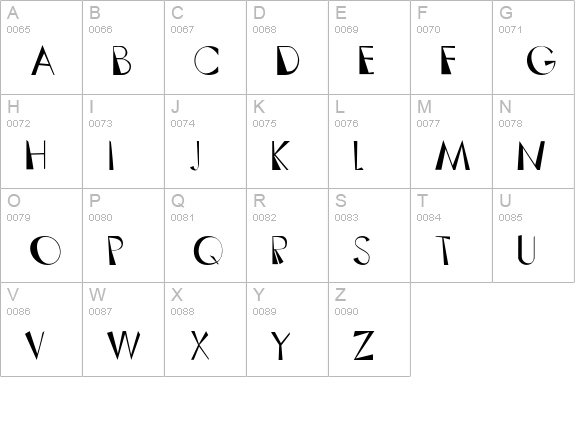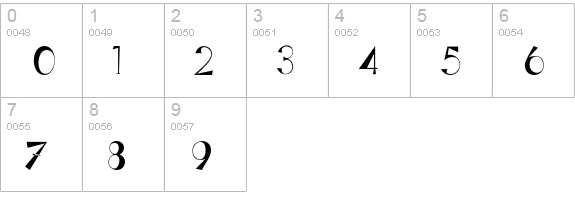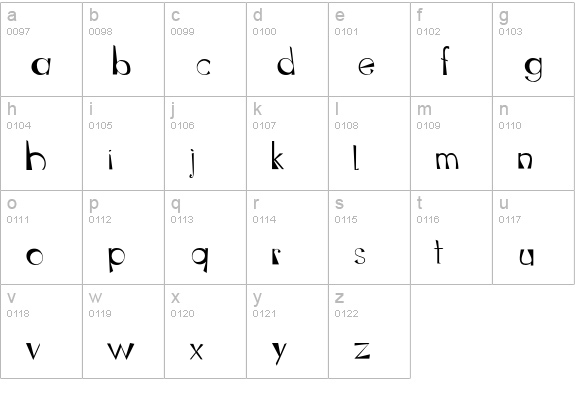
Outhaus Font Details
Outhaus font is a stunning display typeface that exudes a perfect blend of modernity and elegance. Its clean lines and stylish letterforms make it a versatile choice for a wide range of design projects, from branding to editorial design. The unique characteristics of Outhaus font give a sophisticated touch to any design, creating a memorable and impactful visual presence. The best part? Outhaus font is available for free download at FontsMarket.com, making it easily accessible to designers and creatives looking to add a touch of sophistication to their projects. With its sleek and contemporary design, Outhaus font is sure to elevate your designs and leave a lasting impression on your audience. Download Outhaus font today and bring a touch of modern elegance to your next project.